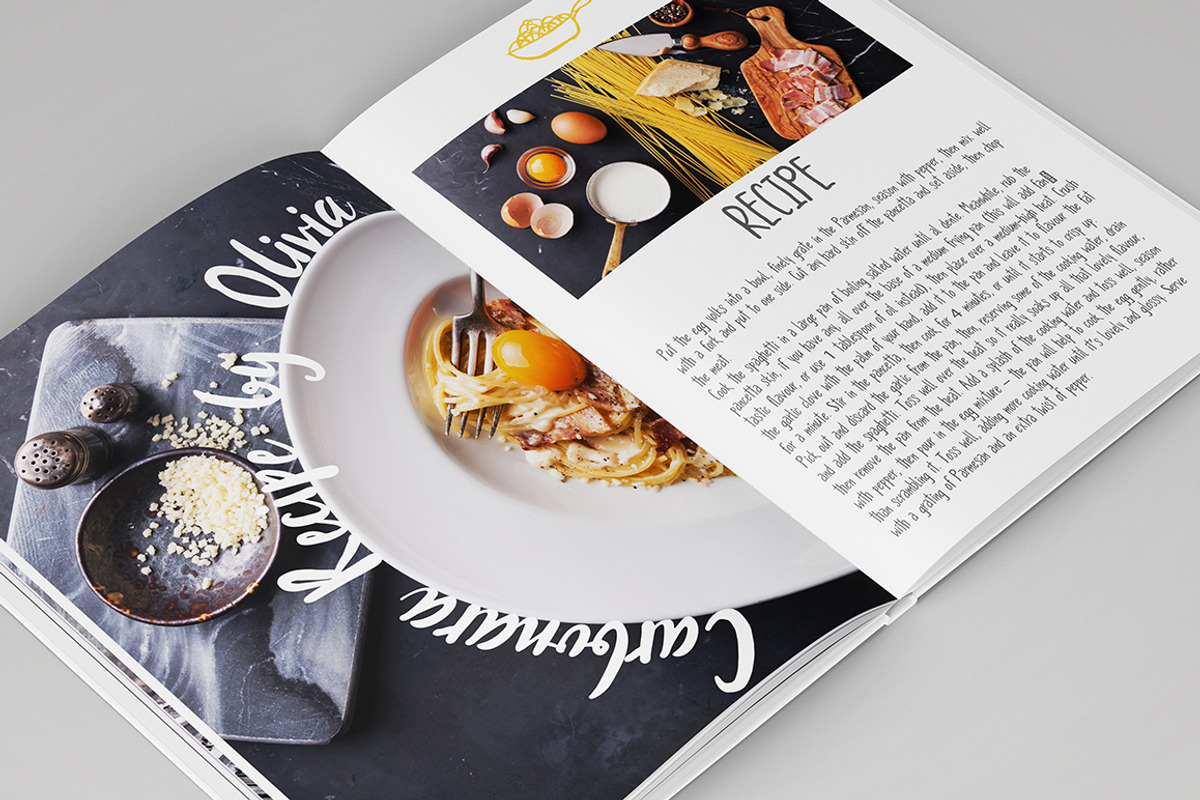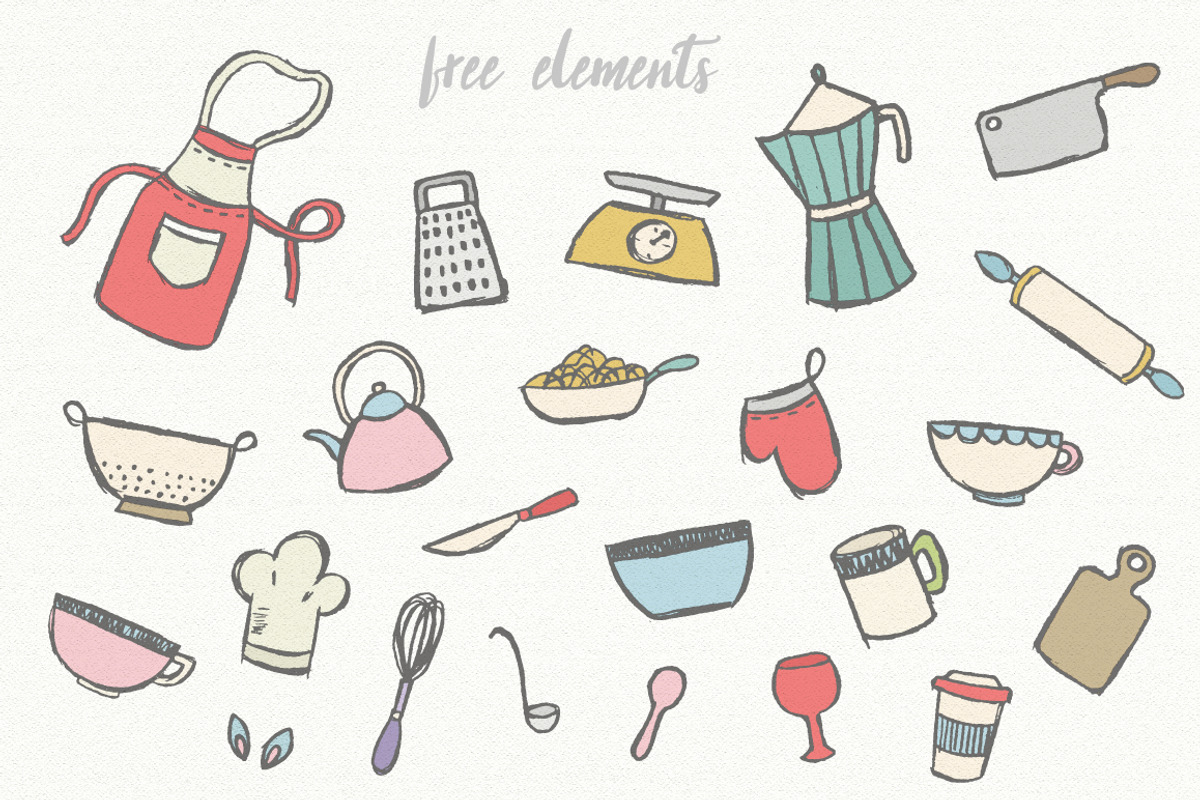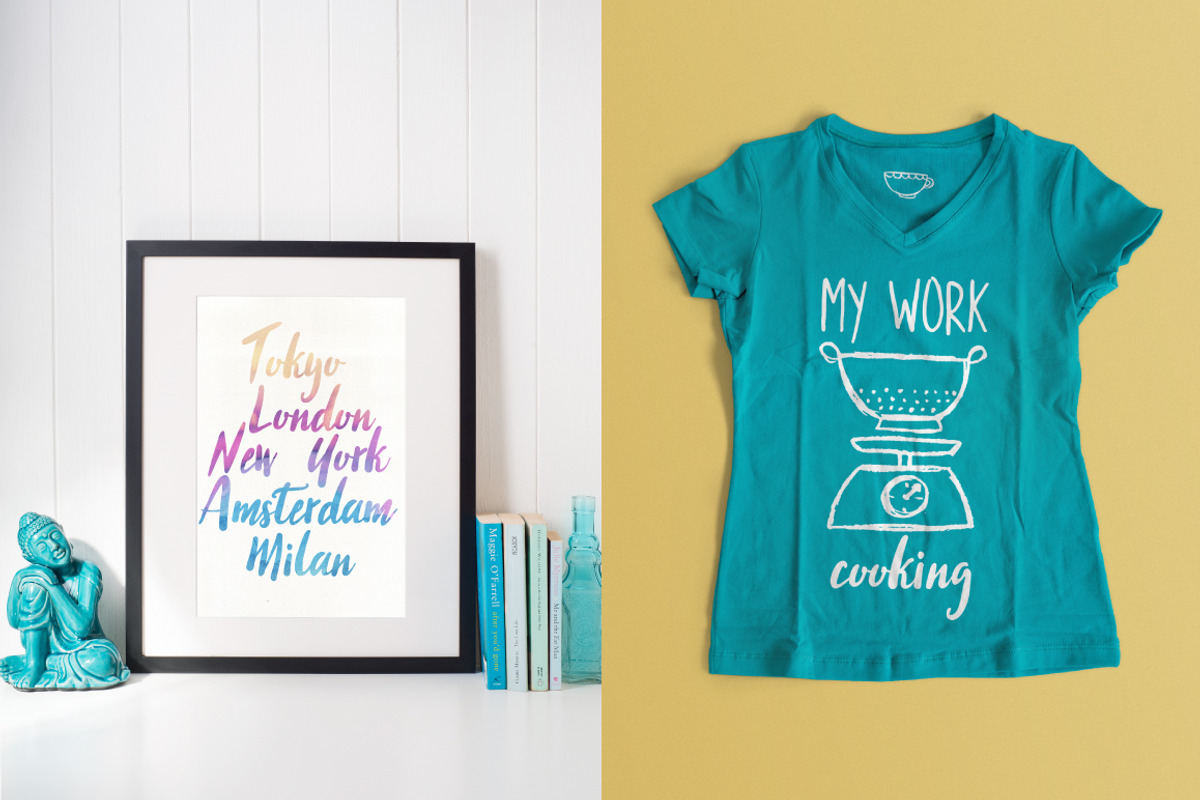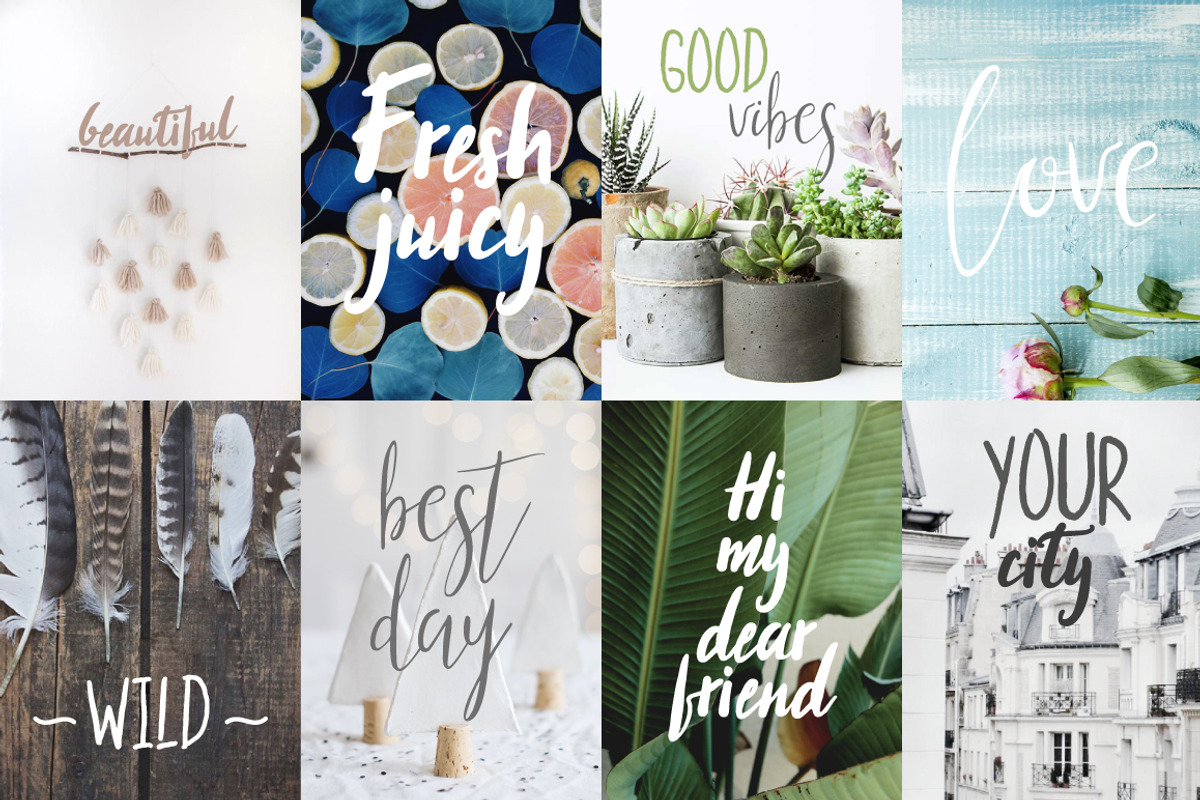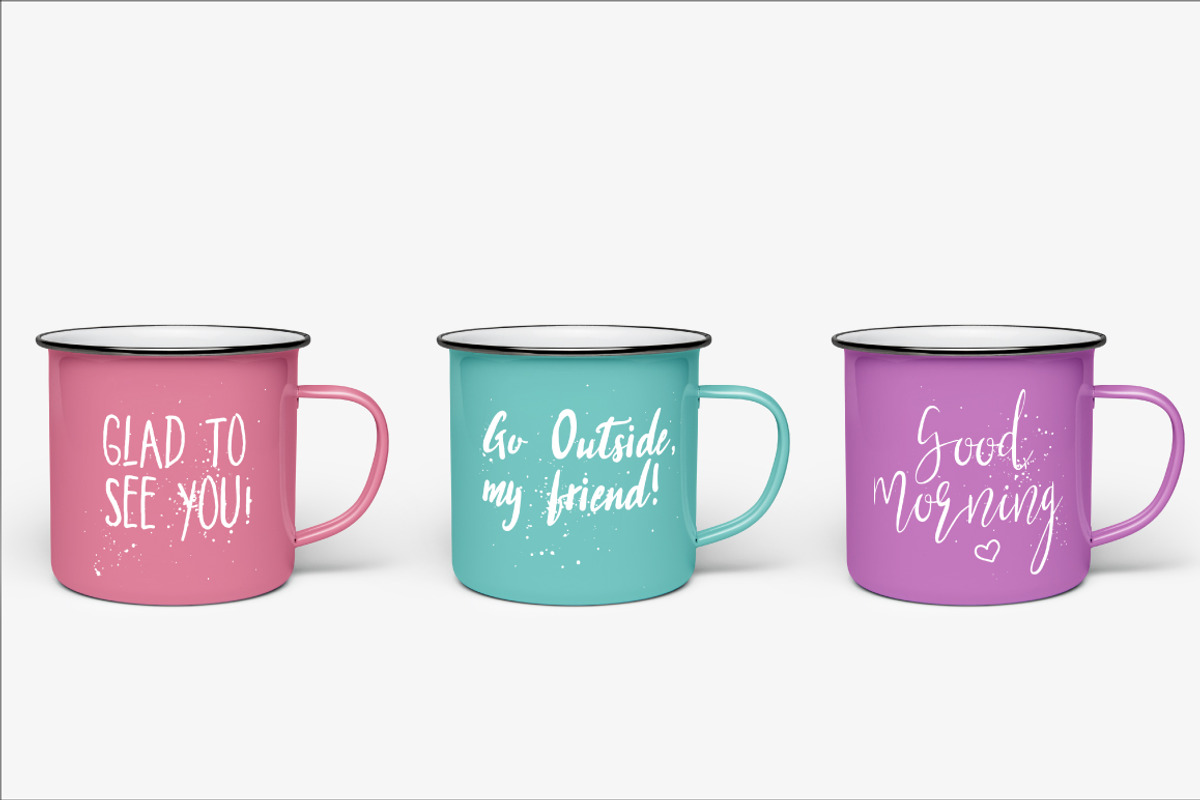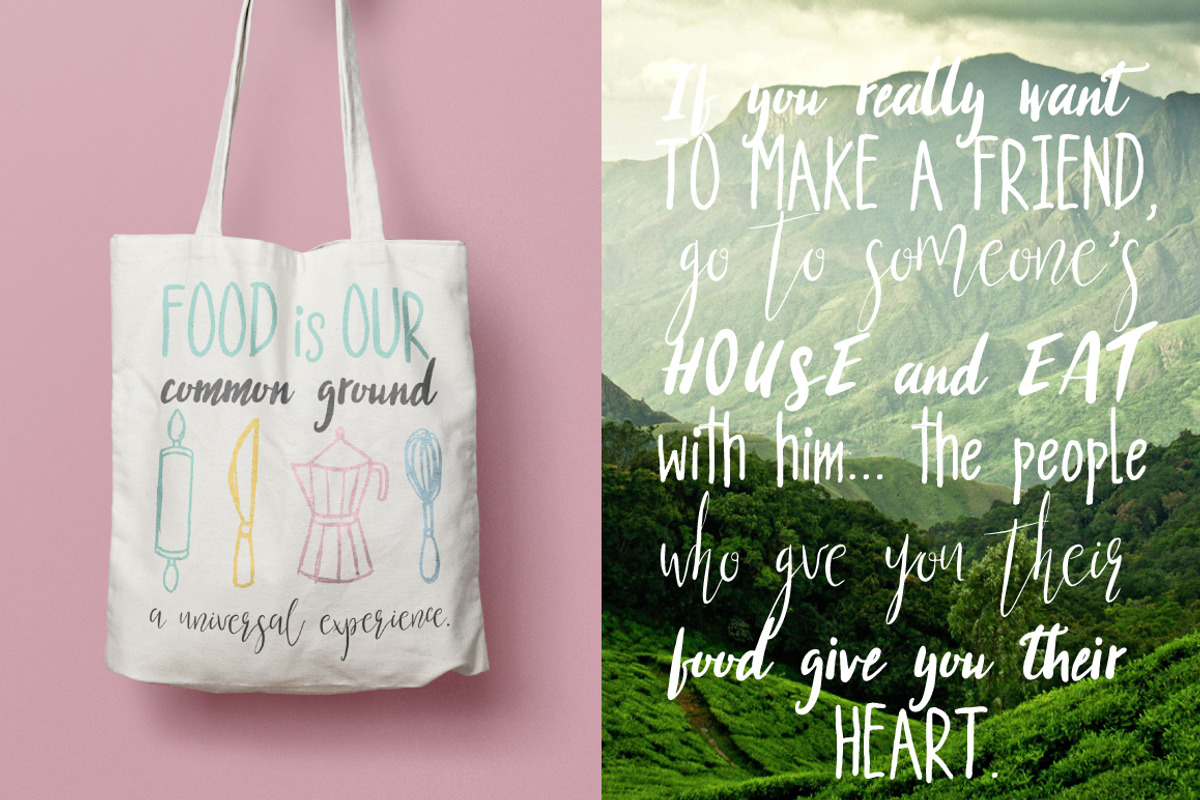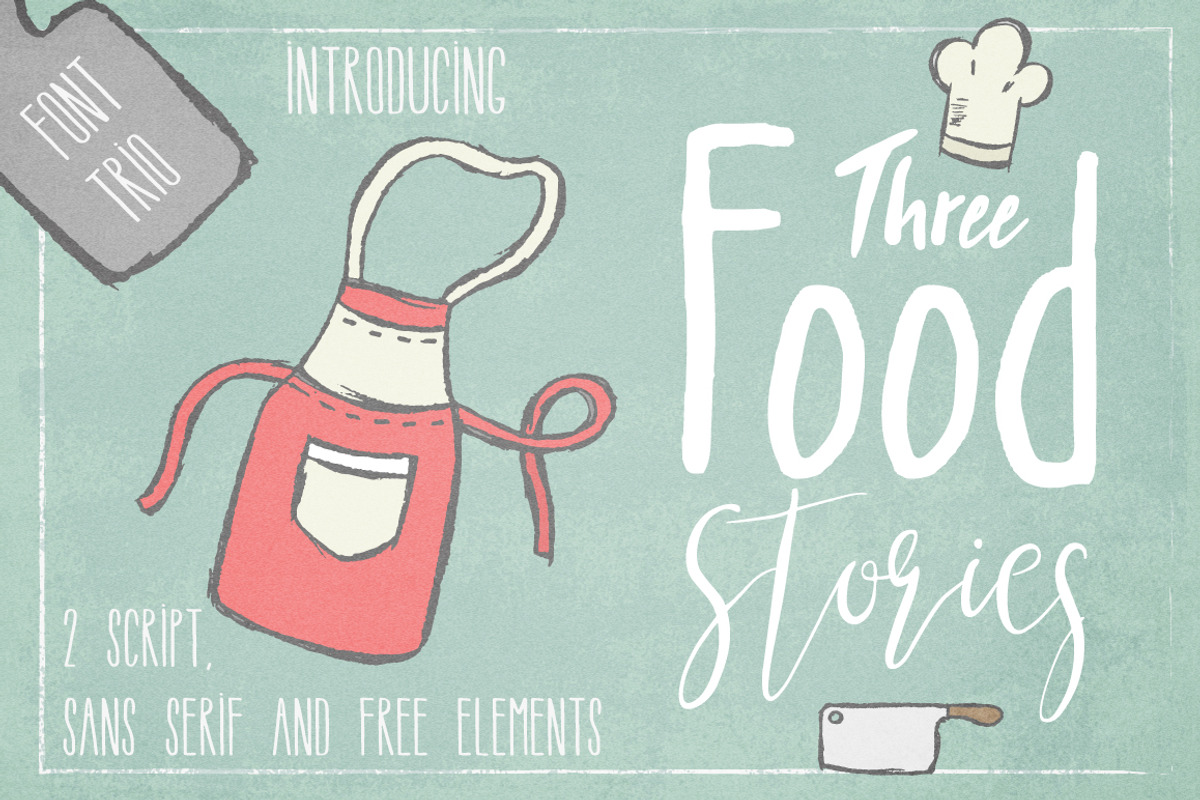
Three Food Stories [Font Trio]
I present to you my new 2 Script and Sans Serif font. It's hand drawn script font with alternative letters and free kitchen elements.